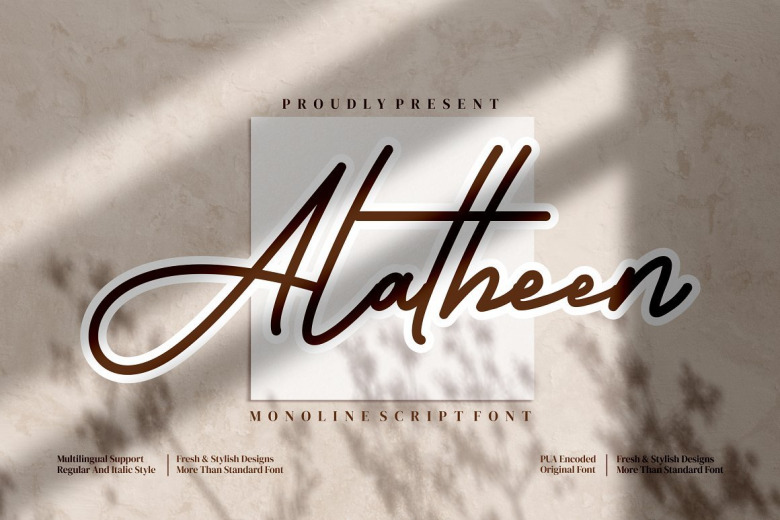
Alatheen Font
Alatheen – Monoline Script style font, suitable for any projects such as: logo designs, branding images, houseware graphics, product packaging, cups, slogans, bills, post cards, carry bags, t-shirts, dust covers, name cards, invitation cards, greeting cards, labels, photography, watermark, occasions, and all your other grand projects that require a class feel.
Alatheen Monoline Script Font